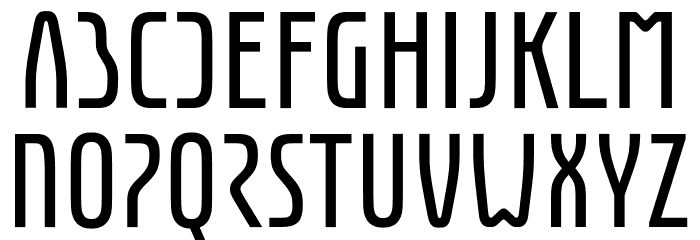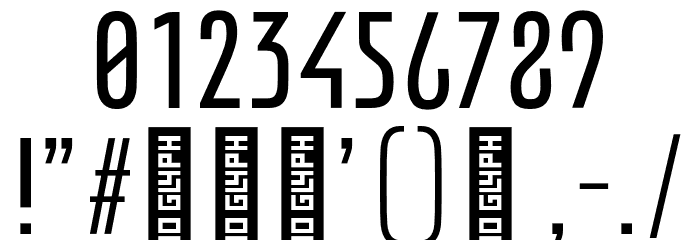
Eunomia-Regular Font
This font features a modern and geometric design with clean, straight lines and sharp angles. The uppercase letters are tall and narrow, giving a sleek and streamlined appearance. The lowercase letters maintain a consistent style, complementing the uppercase with a slightly more rounded form. The numerals are distinct and easy to read, adhering to the overall geometric theme. Special characters are well-integrated, maintaining the font's uniformity. The font's design is both contemporary and versatile, suitable for various applications.
A modern, geometric font with clean lines and sharp angles.